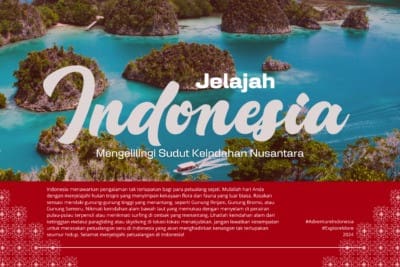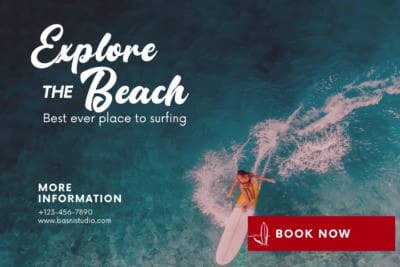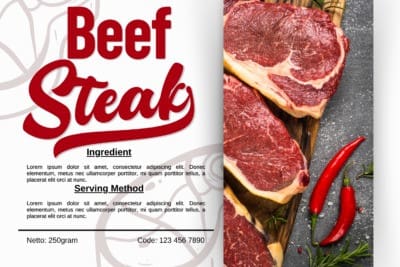
Rallidoni Script Font
Rallidoni Script Font: A Typeface That Defines Your BrandTypography isn’t just about letters—it’s about identity, emotion, and impact. Rallidoni is a meticulously crafted typeface designed to bring character and distinction to your brand.